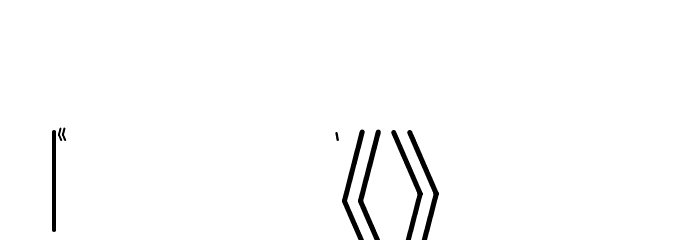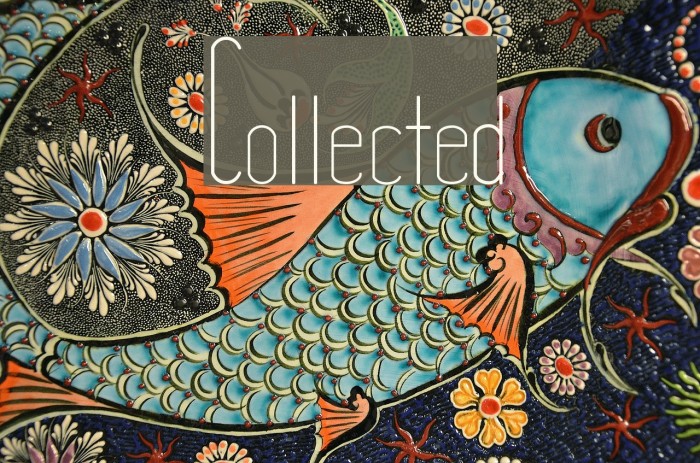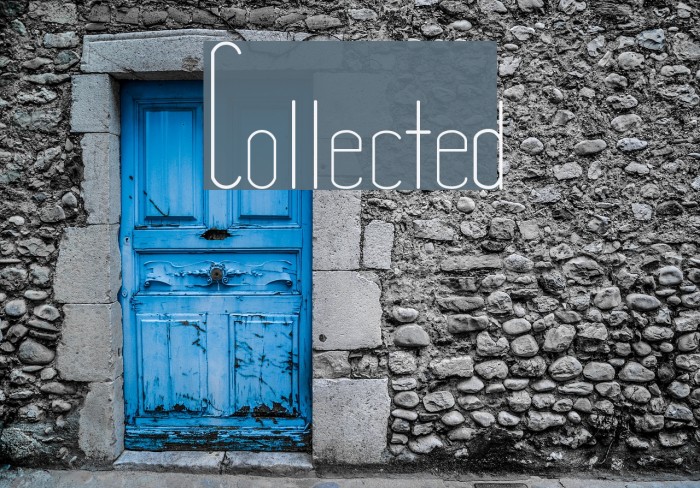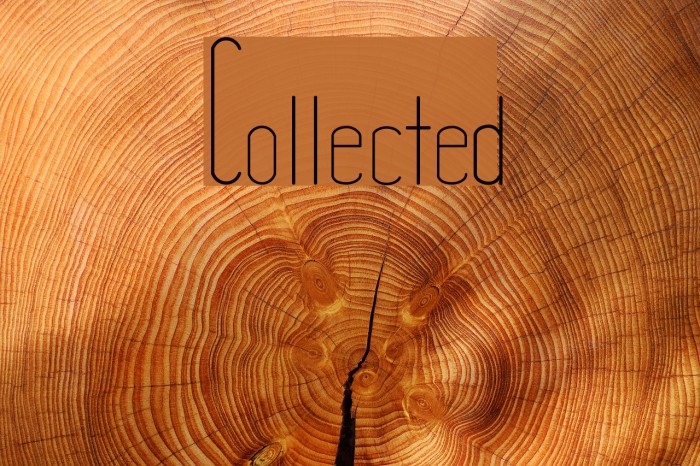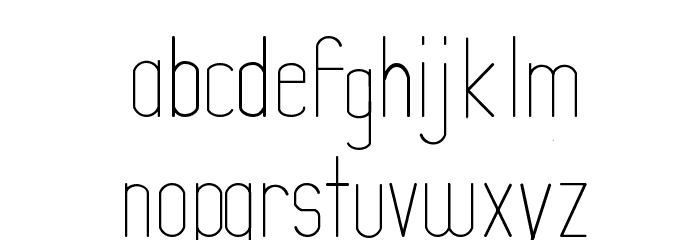
Collected Font
Collected Description
This font features a unique, ultra-condensed style with elongated vertical lines, giving it a modern and minimalist appearance. The characters are tall and narrow, with consistent stroke width throughout, creating a sleek and streamlined look. The uppercase letters are particularly striking, with their extended height and geometric forms. The lowercase letters maintain the same narrow proportions, ensuring uniformity across the typeface. The numerals and special characters follow the same design principles, making the font suitable for contemporary and avant-garde projects. Its distinctive style makes it stand out, while the clean lines ensure readability.
A modern, ultra-condensed font with elongated vertical lines and geometric forms from Uncategorized fonts.
- Proposed Projects: Ideal for modern branding, futuristic designs, fashion magazines, and minimalist posters.